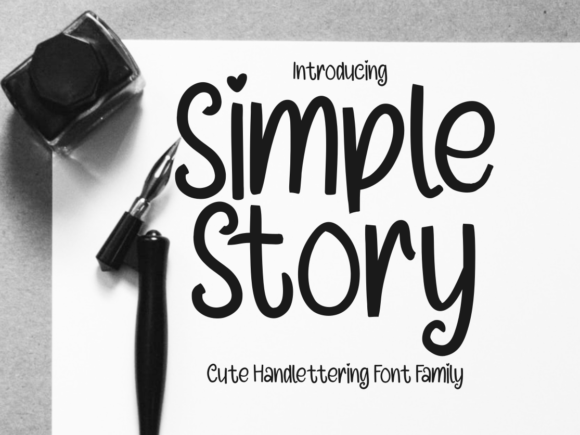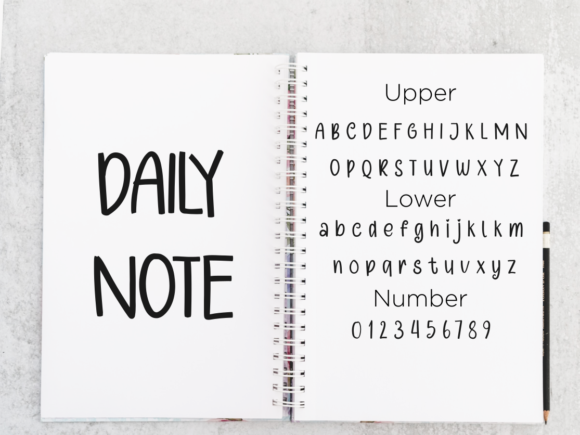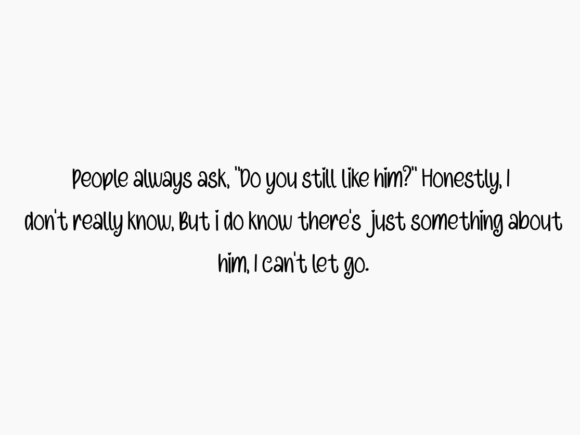
Simple Story Font
About Simple Story Font
Simple Story typeface is as sweet as it sounds. This handwritten font features slim and simple drawn lines that will surely add a personal element to your next card, craft, or print!